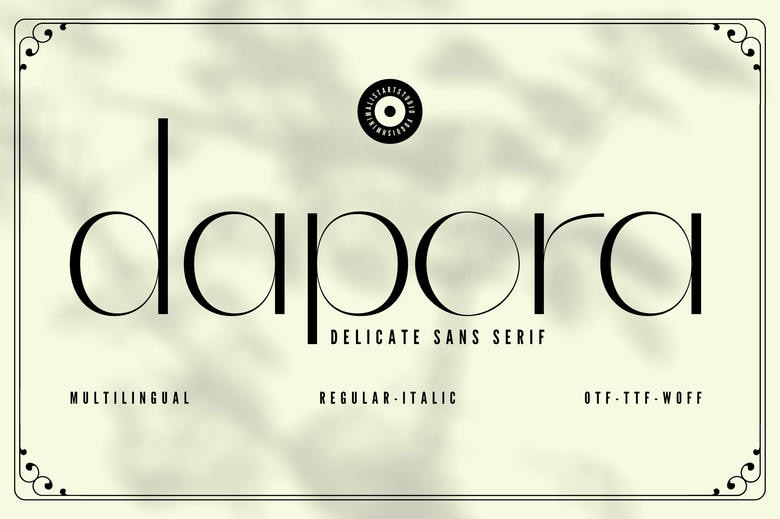
Dapora Font
Dapora is a stylish and classy sans serif font that will give your design the new dimension. Dapora has a minimalist design, which is the embodiment of sophistication and style, thus suitable in the context of modern brands, high-end products, and luxury designs.
Dapora Sans Serif Font